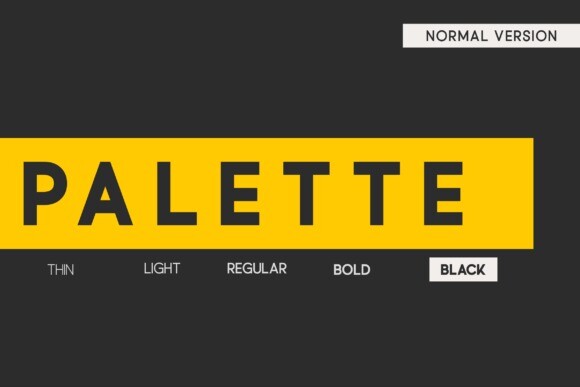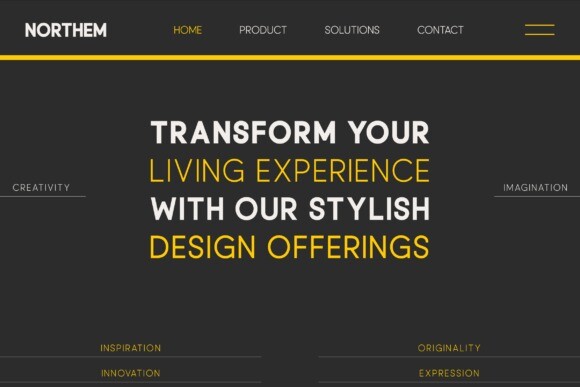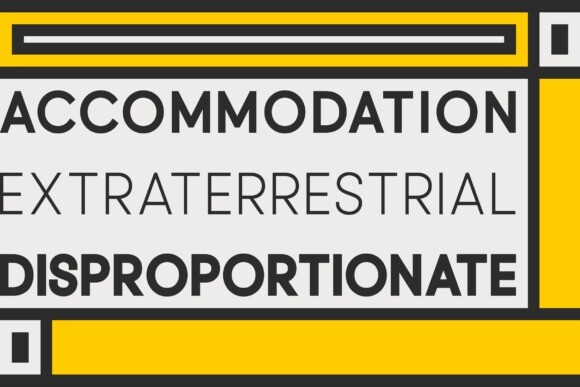
Palette Sans Font
Palette Font an embodiment of elegance and minimalism. With 5 distinct weights, this sans serif collection seamlessly combines modernity and luxury. Crafted with utmost precision, it effortlessly enhances any project, whether it be a magazine, logo, or film poster. Discover the perfect balance of sophistication and simplicity, allowing your designs to exude timeless charm. Unlock the power of our font family today.